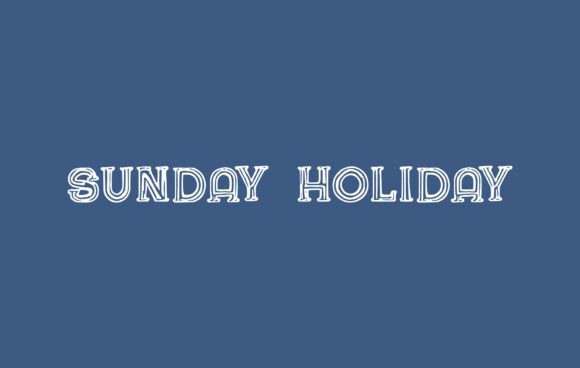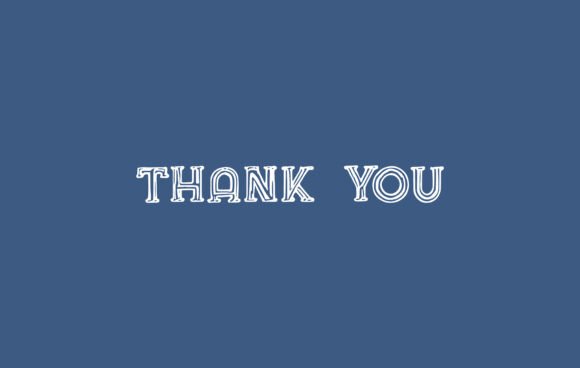
Introducing Genesis Font: A Futuristic yet Personable Choice for Bold Projects
In the realm of typography, fonts play a pivotal role in defining the visual identity of a brand, product, or service. Among the myriad of fonts available, Genesis font stands out with its unique blend of structured futurism and personality. This article aims to explore the Genesis font in-depth, understanding its characteristics, and why it has become a go-to choice for tech, gaming, and bold brand projects.
The Genesis Font: A Glimpse into its Features
Genesis font boasts a structured and futuristic style that is both modern and captivating. However, what sets it apart is its ability to convey personality without shying away from its bold design. This font incorporates outlined and layered effects, which contribute to its standout appearance. These features make Genesis not just a font, but a statement piece for any project it is part of.
Outlined and Layered Effects: The Hallmark of Genesis
The outlined and layered effects in Genesis font are perhaps its most distinctive features. These effects add depth and dimension to the text, making it pop against any background. The outlined effect gives the font a sleek, sophisticated look, while the layered effect adds a sense of complexity and intrigue. This combination is particularly effective in tech, gaming, and bold brand projects where making a strong visual impact is crucial.
Why Genesis Font is Perfect for Tech, Gaming, and Bold Brand Projects
The tech and gaming industries are known for their fast-paced and innovative nature, requiring visual elements that are not only modern but also engaging. Genesis font, with its futuristic style, fits perfectly into these industries. The outlined and layered effects give tech and gaming projects a professional yet edgy look, appealing to their typically youthful and dynamic audiences.
Similarly, bold brand projects require fonts that can convey confidence and innovation. Genesis font, with its structured yet personable style, helps brands stand out in crowded markets. Its unique appearance ensures that the brand’s message is not just seen but also remembered.
Tips for Using Genesis Font Effectively
To make the most out of Genesis font, consider the following tips:
- Pair it with Simple Backgrounds: The outlined and layered effects of Genesis font can be overwhelming if the background is too busy. Pairing it with simple backgrounds allows the font to be the focal point.
- Experiment with Colors: While Genesis font looks great in bold colors, experimenting with different hues can help match it perfectly with your project’s theme.
- Use it for Headings: Due to its bold nature, Genesis font is best used for headings and titles. It can be paired with simpler fonts for body text to create a balanced look.
Genesis font is a powerful tool for designers and crafters looking to add a futuristic yet personable touch to their projects. Its unique outlined and layered effects make it an excellent choice for tech, gaming, and bold brand projects. By understanding its features and how to use it effectively, designers can leverage Genesis font to create visually stunning and memorable works.
Whether you’re working on a new tech startup’s logo, a gaming project’s title screen, or a bold brand’s advertising campaign, Genesis font offers a versatile and impactful solution. Its ability to convey both futurism and personality makes it a valuable addition to any designer’s toolkit.